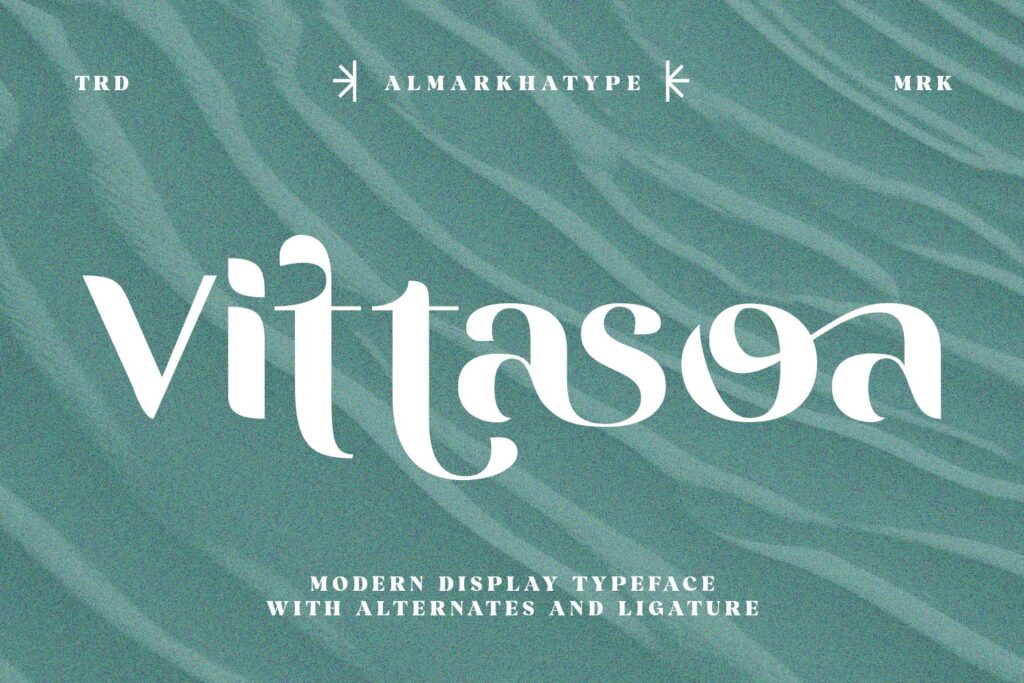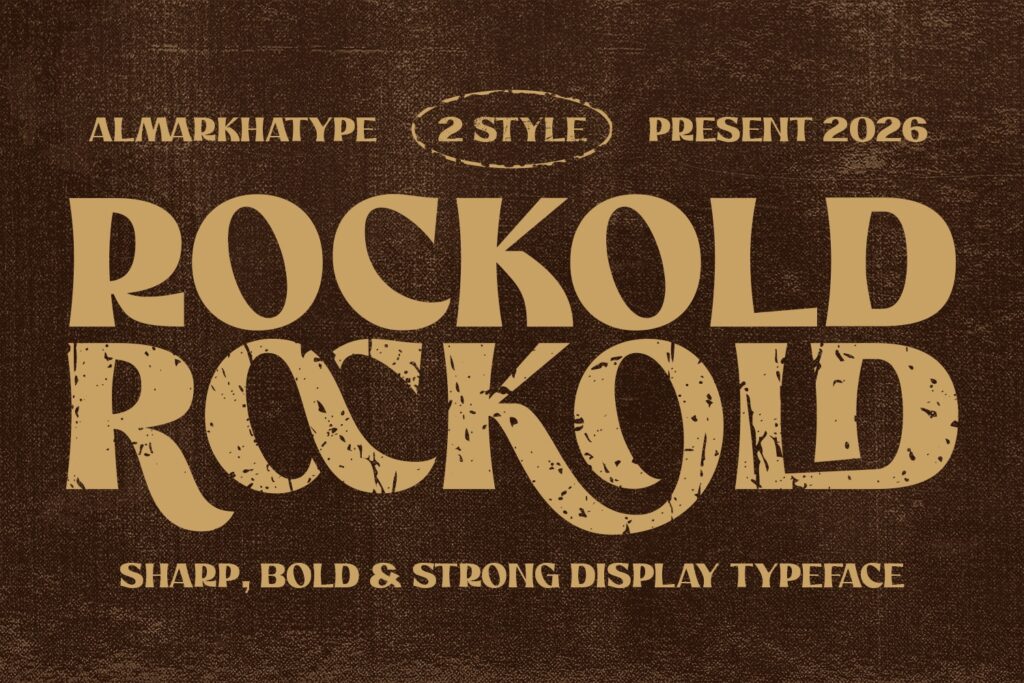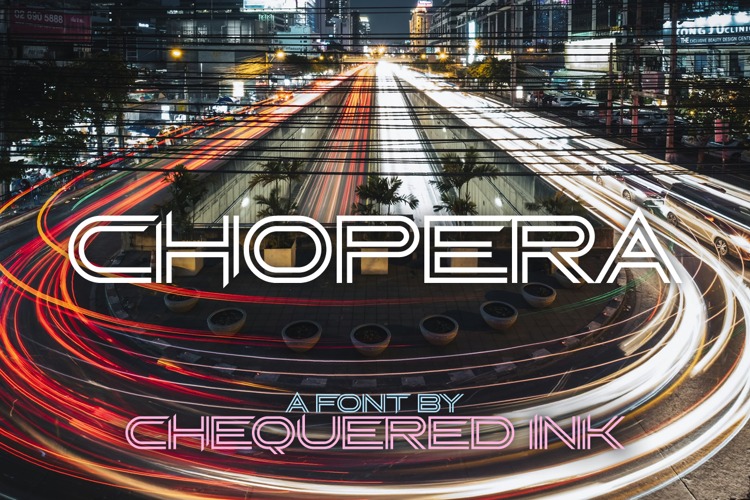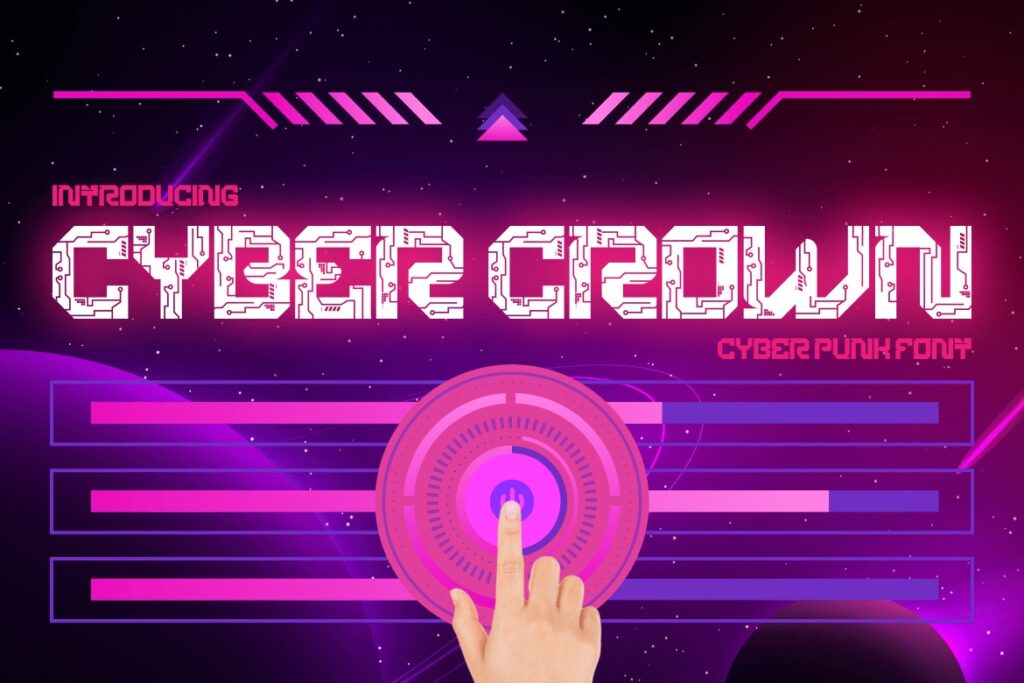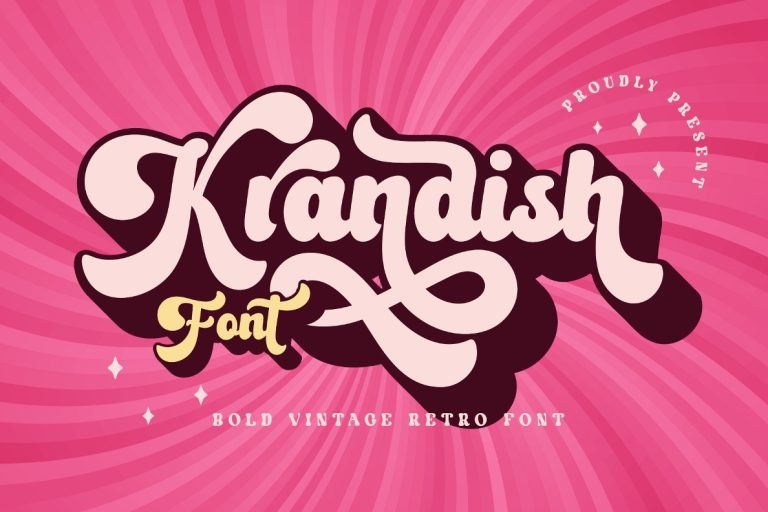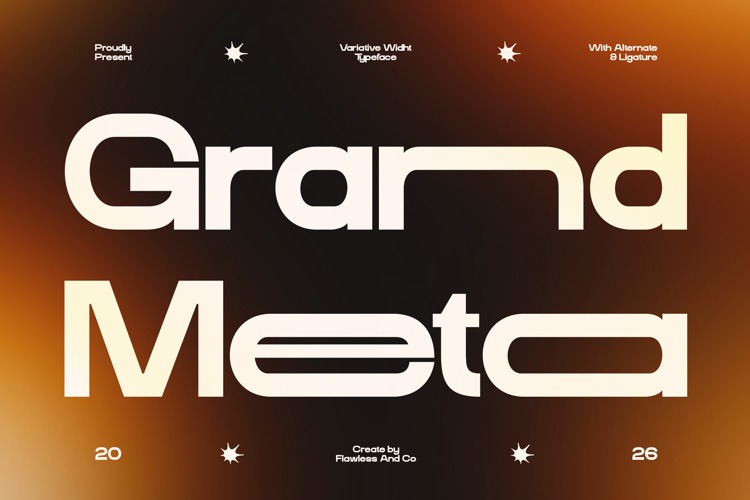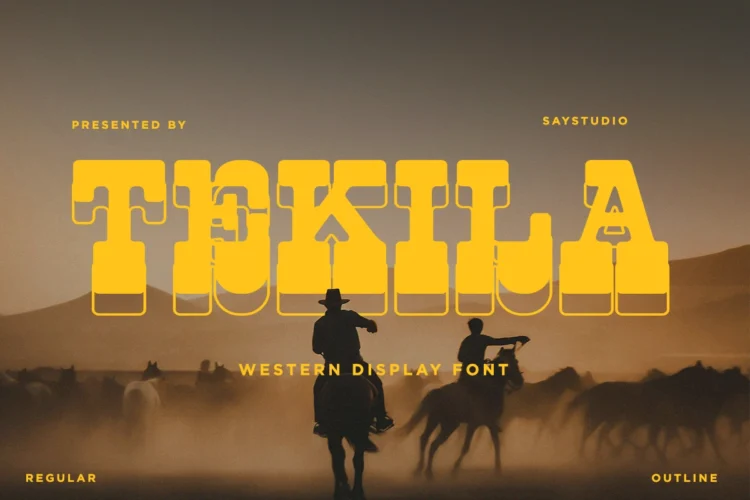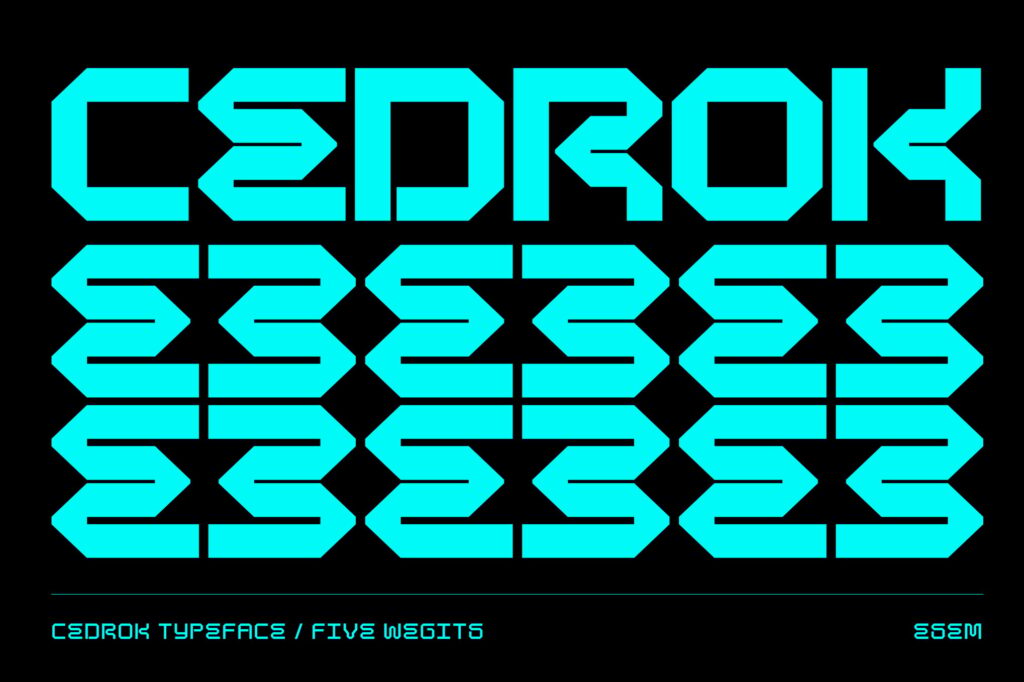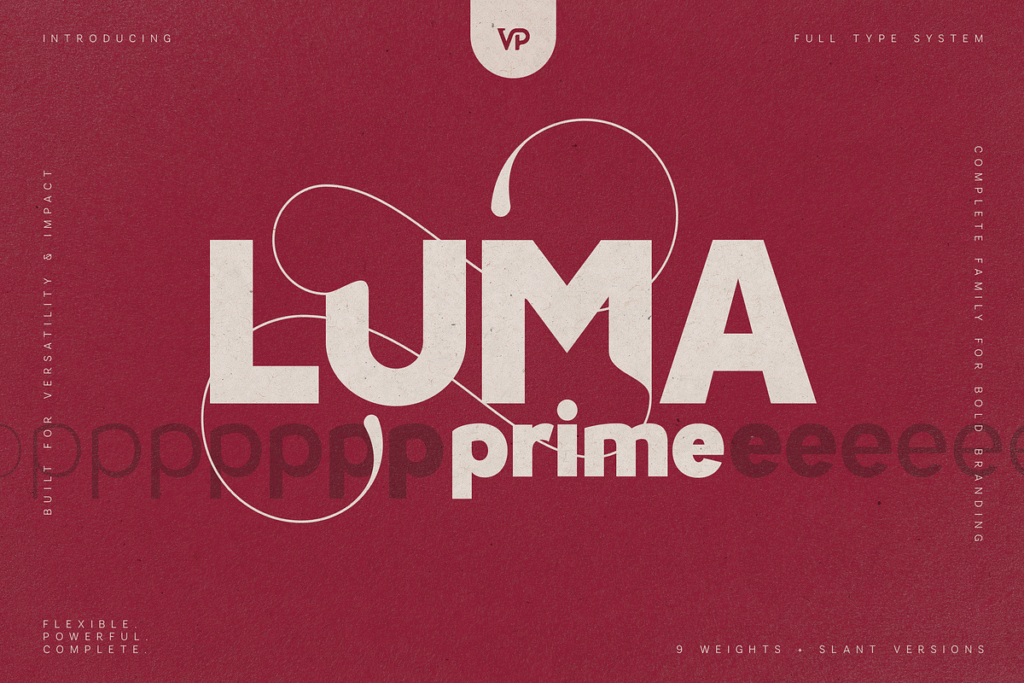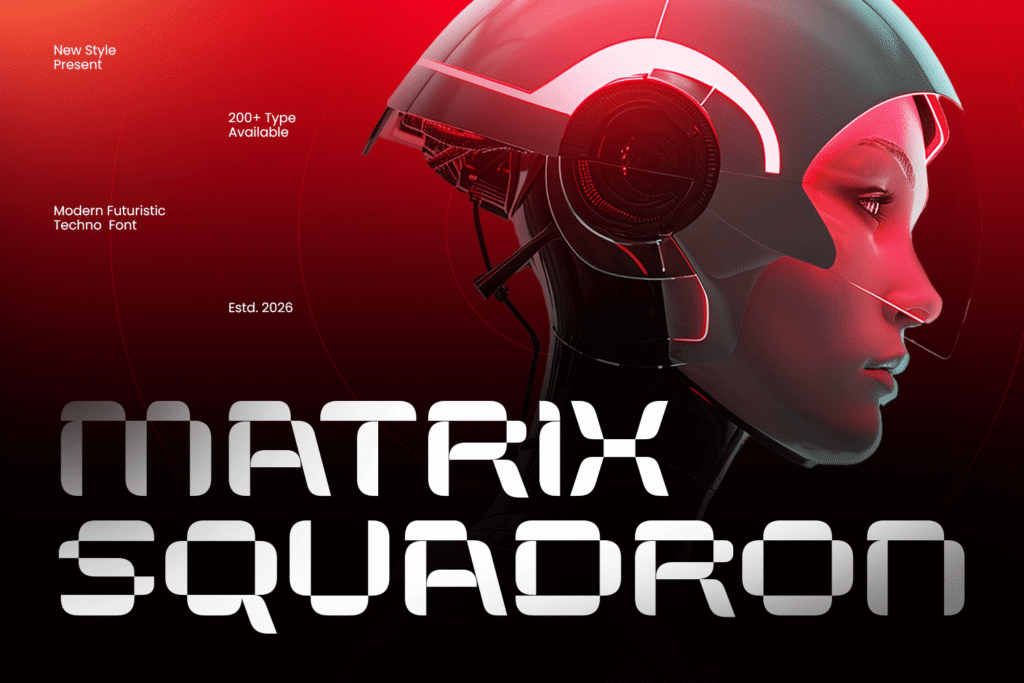
Vittasoa – Modern Diplay Font
Vittasoa – Modern Diplay Font is a versatile font designed to adapt beautifully across different design styles, offering dependable readability and balance. Vittasoa, a modern display typeface crafted with elegant curves and unique letterforms.
234 Sec – Bold Sport Font
234 Sec – Bold Sport Font is a clean and thoughtfully built typeface that works seamlessly for both professional branding and everyday creative uses. 234 Sec is a bold sport headline display font designed to capture the intensity and motion of competitive athletics.
Rockold – Bold Diplay Font
Rockold – Bold Diplay Font is a clean and thoughtfully built typeface that works seamlessly for both professional branding and everyday creative uses. Rockold, a sharp, bold, and strong display typeface designed to deliver a powerful vintage and rugged impression.
Chopera – Techno Sport Font
Chopera – Techno Sport Font is a flexible and reliable font created to fit multiple design needs, from branding and packaging to social media and editorial layouts. Chopera is a bold techno sport font that blends futuristic design with dynamic energy.
Cyber Crown – Techno Sport Font
Cyber Crown – Techno Sport Font is a stylish typeface that enhances visual appeal and works effortlessly in many design contexts. Cyber Crown – Cyberpunk Font, a cutting-edge typeface designed for futuristic and tech-inspired projects.
Krandish – Retro Bold Font
Krandish – Retro Bold Font brings a balanced structure and contemporary look, making it suitable for both digital and print design. Krandish is retro script font with vintage vibes. This font is cute, whimsical
Grand Meta – Modern Sans Serif Font
Grand Meta – Modern Sans Serif Font is a clean and thoughtfully built typeface that works seamlessly for both professional branding and everyday creative uses. Grand Meta is a modern variative width sans serif font designed to bring flexibility
Cyber Cipher – Techno Sport Font
Cyber Cipher – Techno Sport Font is a premium-quality font developed to enhance your work with a polished, modern, and visually elevated look. Cyber Cipher – Cyber Font, a cutting-edge typeface designed for the futuristic
Wech Wech – Techno Sport Font
Wech Wech – Techno Sport Font is a professionally designed typeface that delivers clarity, structure, and consistent performance across various design applications. Wech – Unique Branding Techno Sport Font is a high-energy display typeface designed to combine futuristic techno aesthetics with dynamic sports performance.
Tekila – Bold Slab Serif Font
Tekila – Bold Slab Serif Font is a flexible and reliable font created to fit multiple design needs, from branding and packaging to social media and editorial layouts. Tekila is a Western display font hat captures the timeless charm of the Western cowboy era.
Cedrok Font Family
Cedrok Font Family is a professionally designed typeface that delivers clarity, structure, and consistent performance across various design applications. Cedrok is a bold industrial display typeface inspired by machine geometry
Luma Prime – Modern Sans Serif Font
Luma Prime – Modern Sans Serif Font is a stylish typeface that enhances visual appeal and works effortlessly in many design contexts. LUMA Prime is a powerful modern sans serif typeface designed for bold visual identity, editorial impact
Matrix Squadron – Modern Techno Font
Matrix Squadron – Modern Techno Font brings a balanced structure and contemporary look, making it suitable for both digital and print design. Matrix Squadron is a futuristic display font engineered to deliver high-tech precision and powerful sci-fi energy
Bisteron – Geometric Techno Font
Bisteron – Geometric Techno Font is a distinctive and expressive font crafted to bring personality, structure, and creative energy into your projects. Bisteron is a clean futurist typeface with a rounded, technical feel and a calm confidence in its shapes.